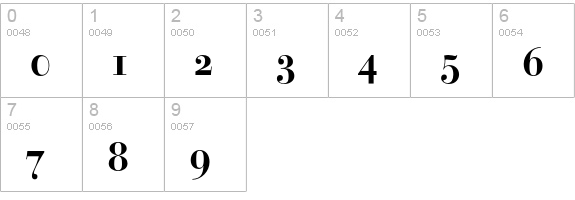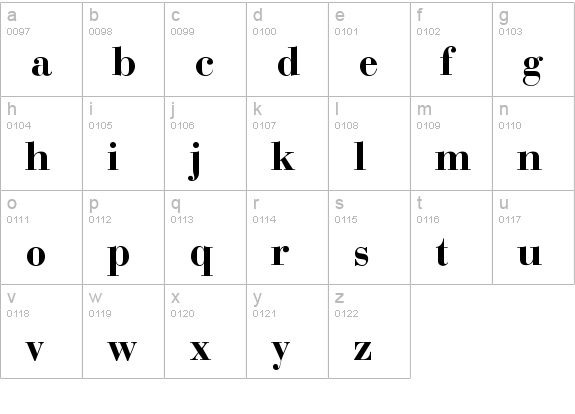
Bauer Bodoni Bold Oldstyle Figures Font Details
Bauer Bodoni Bold Oldstyle Figures is a strong, high-contrast variant in the Bauer typeface family \xE2\x80\x94 well suited to headlines, attention-grabbing titles, and strong calls-to-action.
Bauer Bodoni Bold Oldstyle Figures font is a timeless and elegant typeface that exudes sophistication and class. With its bold and distinctive design, this font is perfect for creating eye-catching headlines, titles, and logos. The oldstyle figures add a touch of vintage charm, making it ideal for projects that require a classic and refined look. And the best part? Bauer Bodoni Bold Oldstyle Figures font is available for free download at FontsMarket.com. Whether you're a designer looking to elevate your typography game or a content creator in need of a stylish font for your project, this font is sure to impress. Don't miss out on the opportunity to add this versatile and stylish typeface to your font collection today!